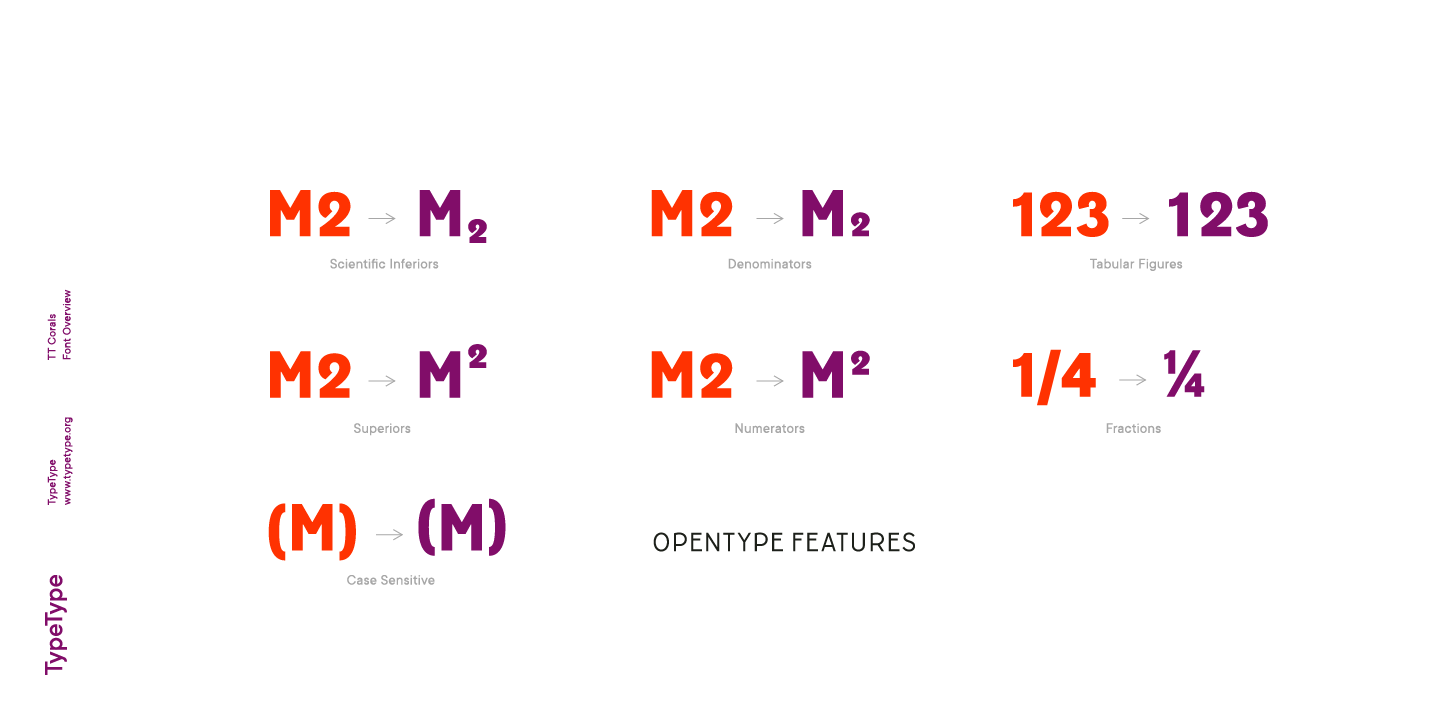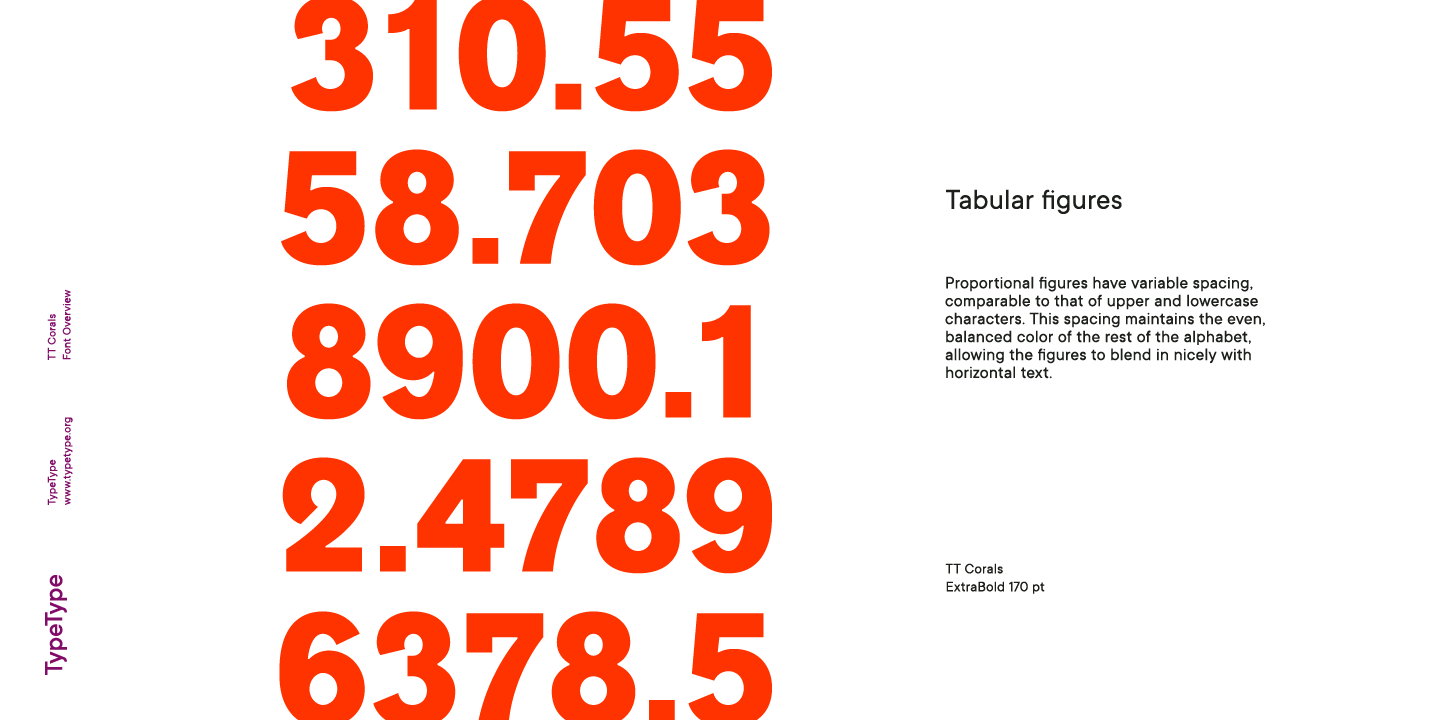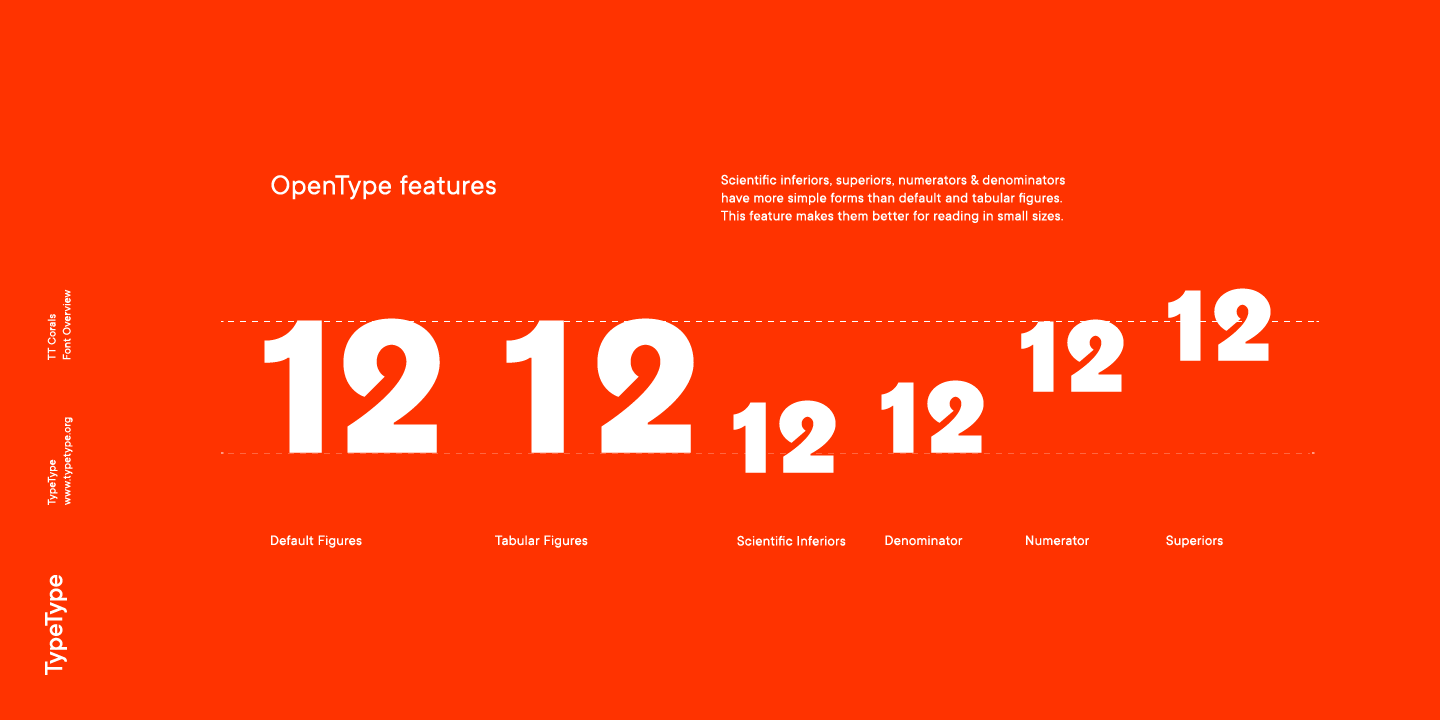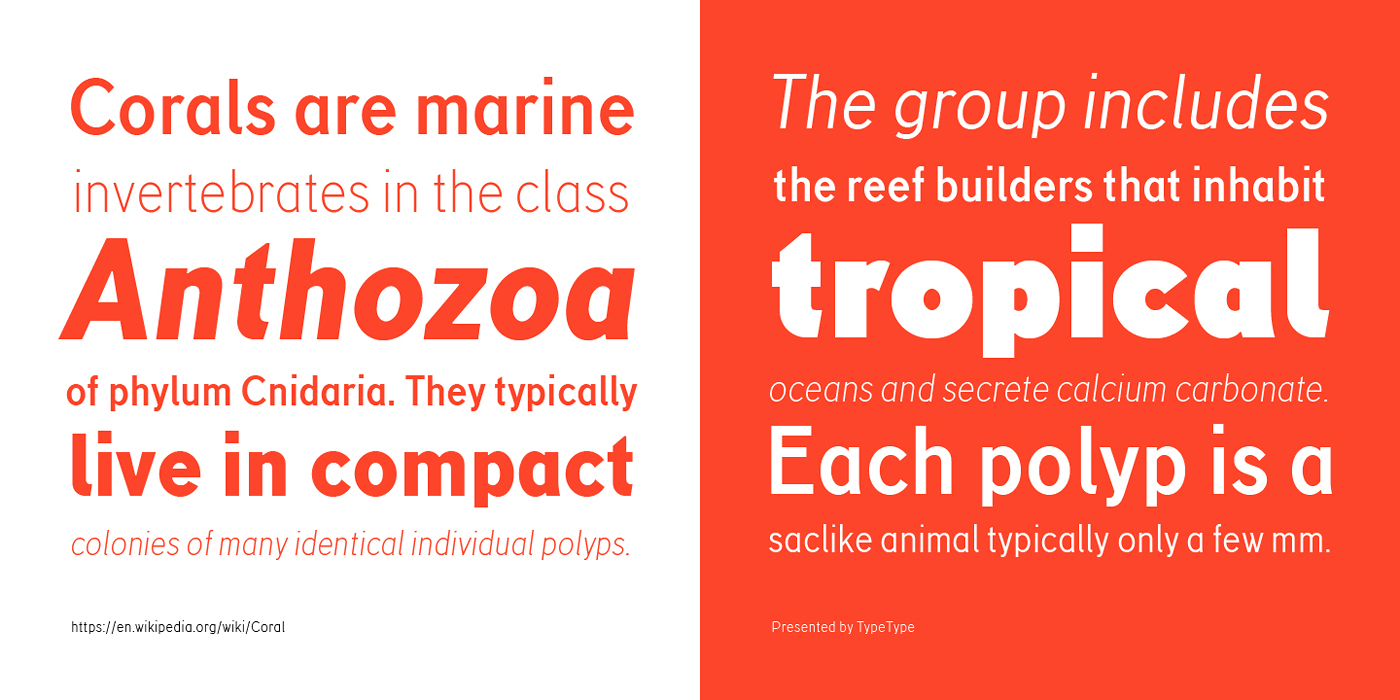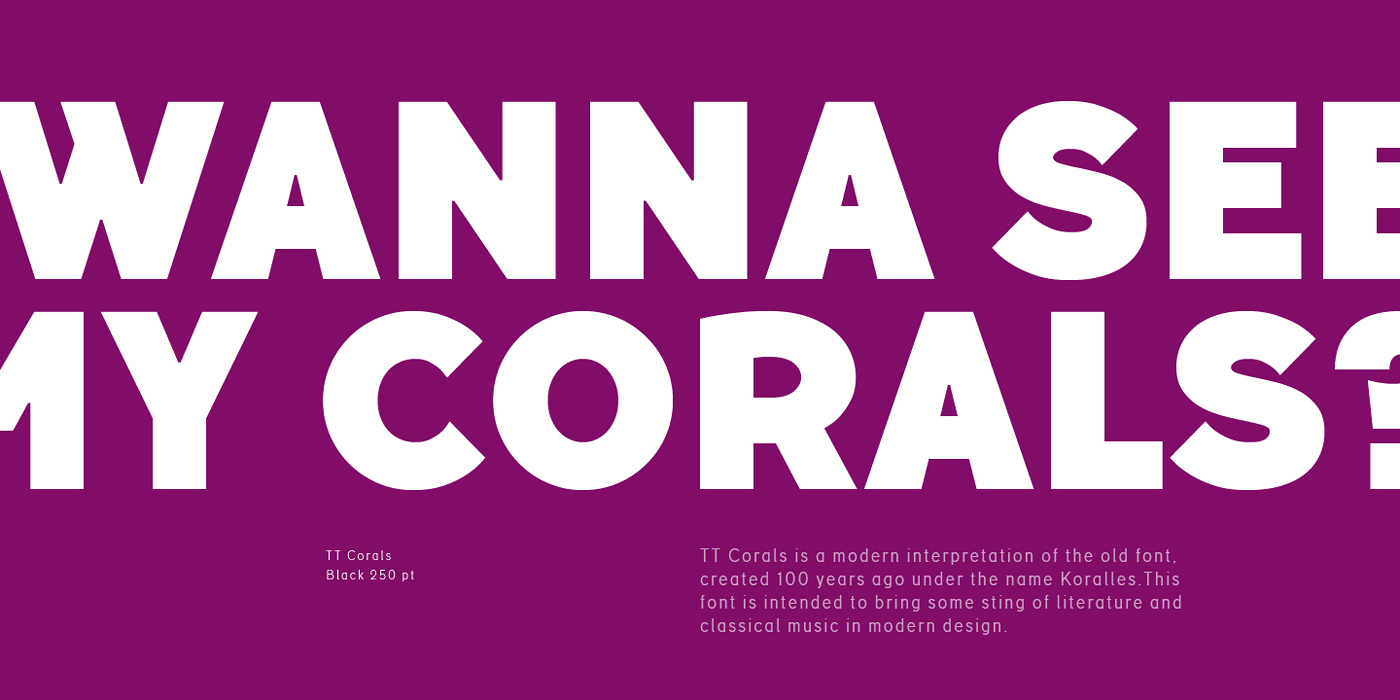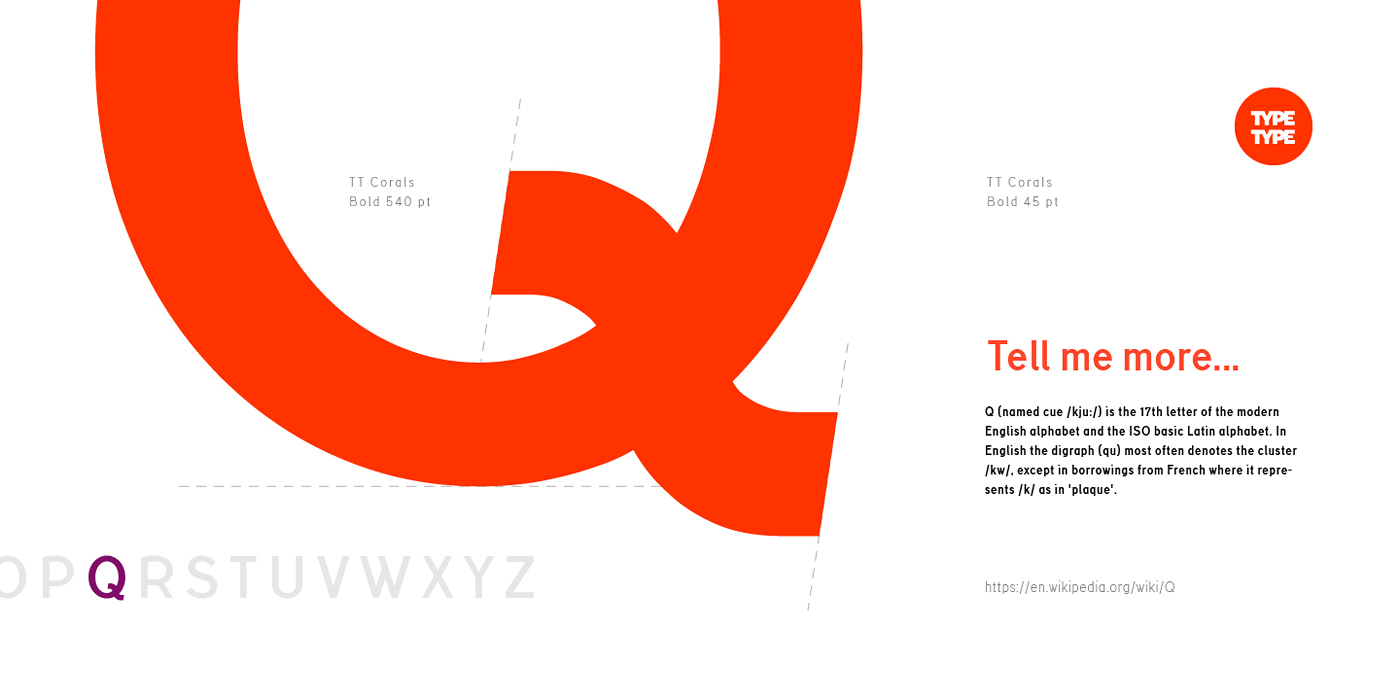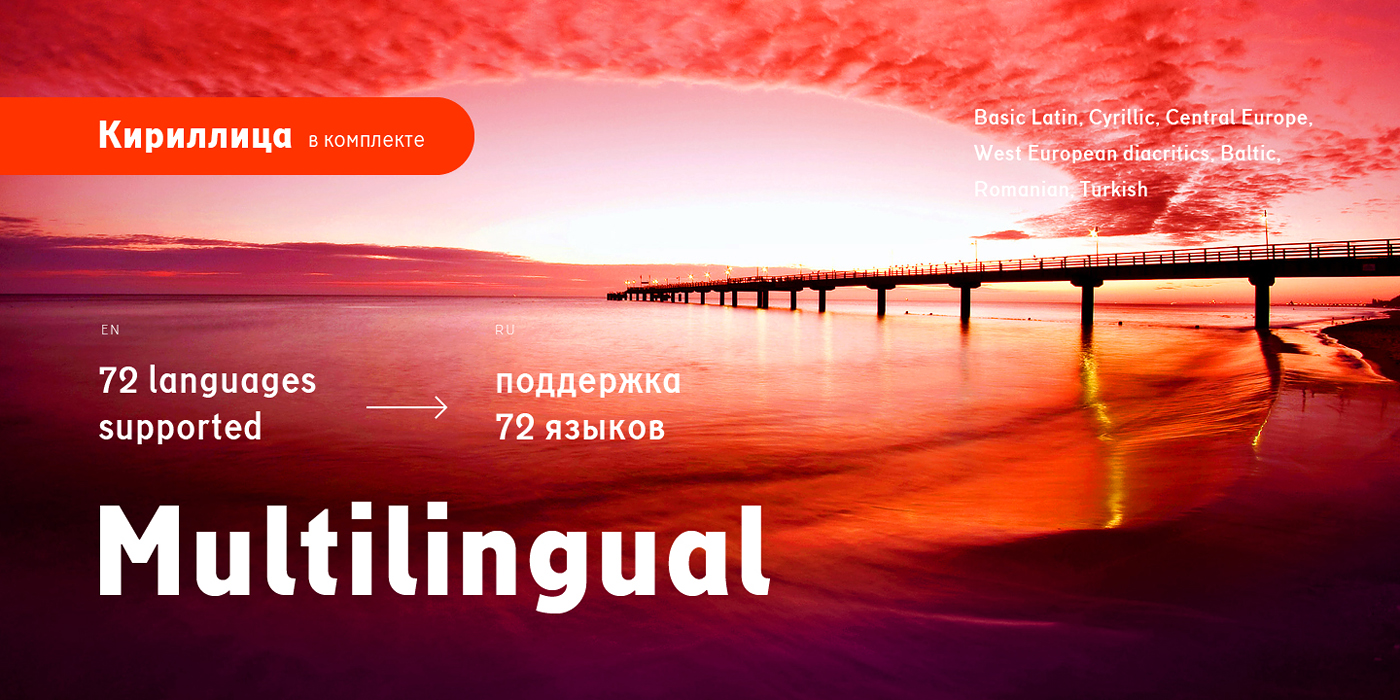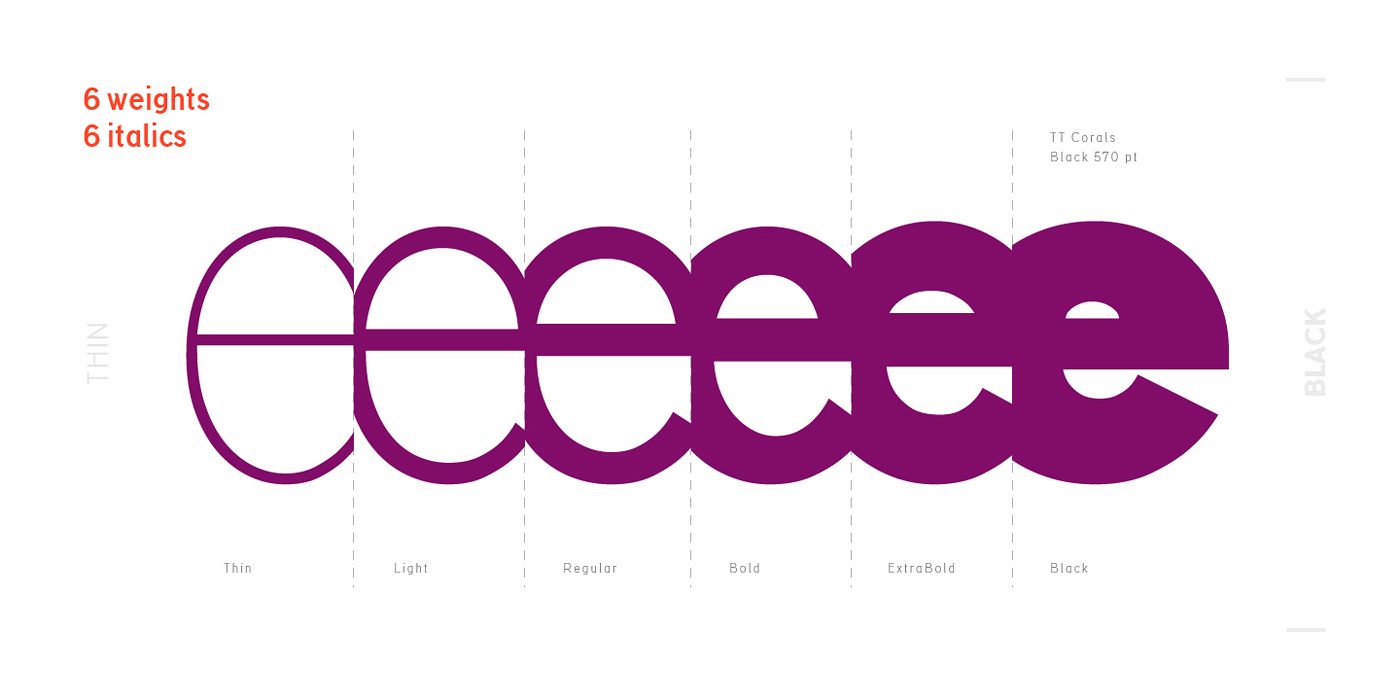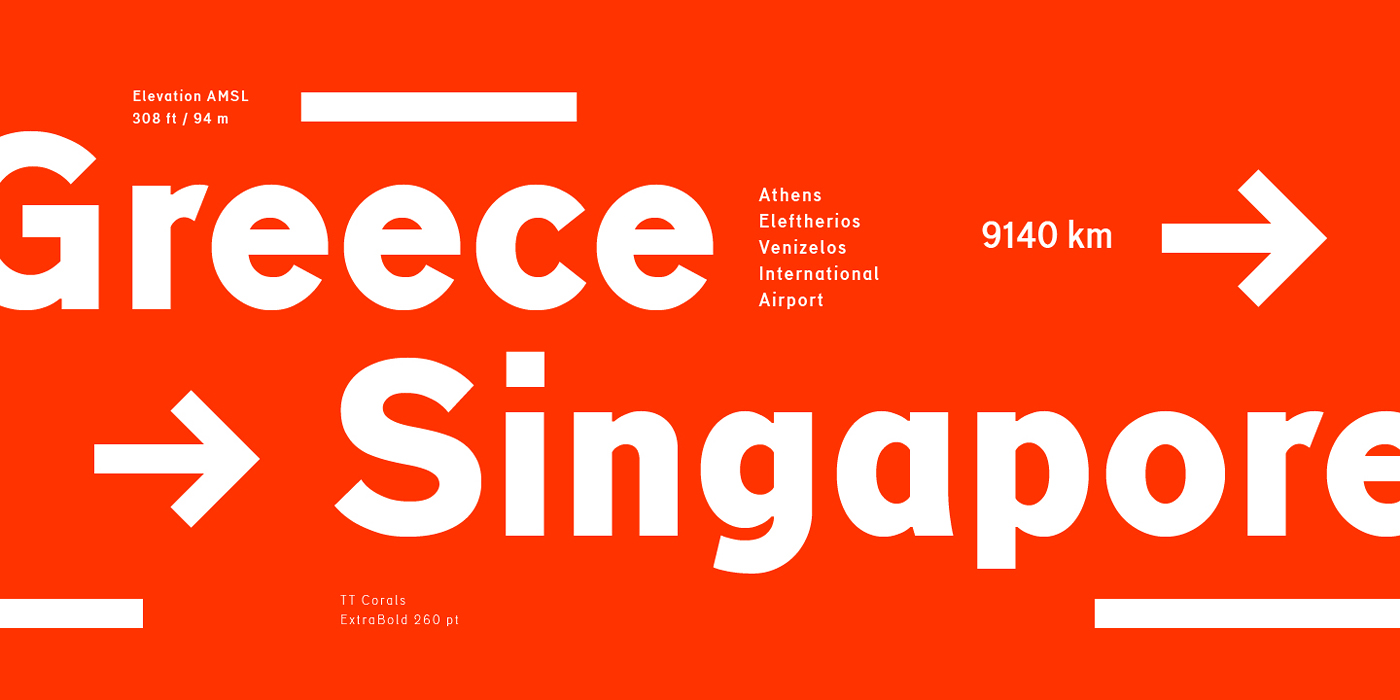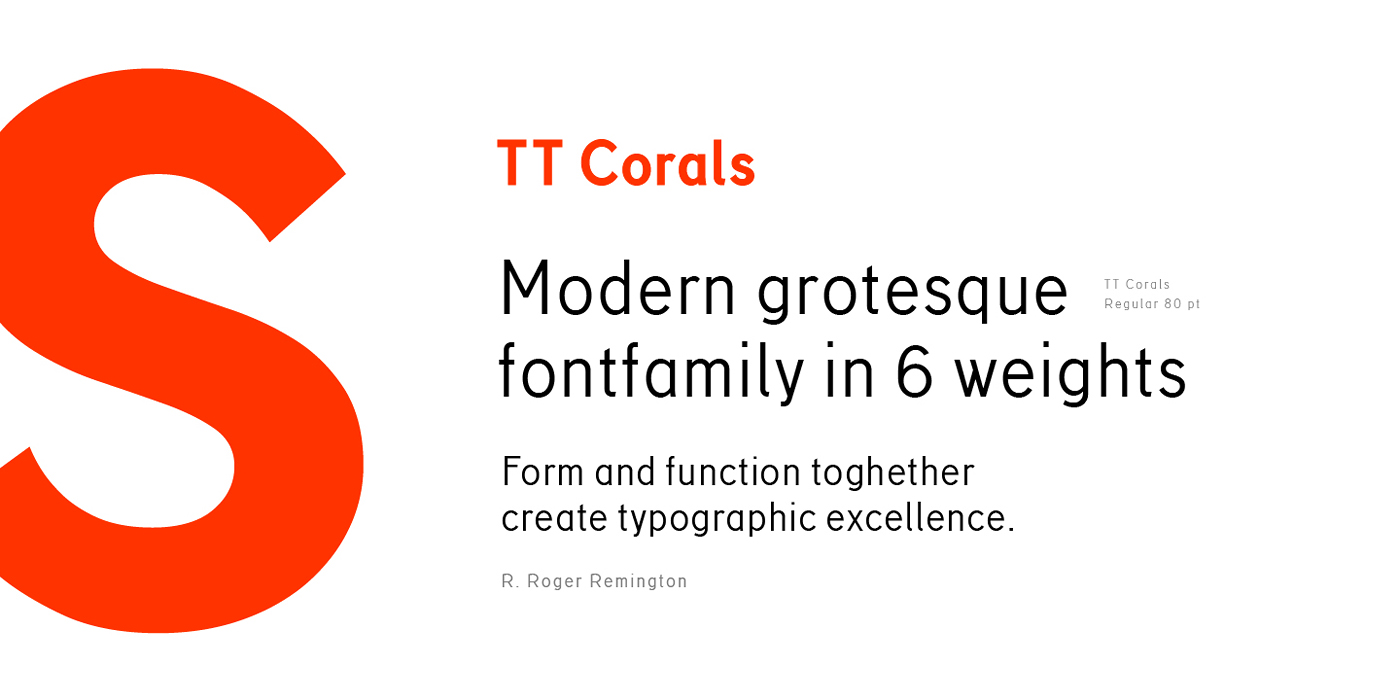
TT Corals
TT Corals is a modern humanist sans serif preserving early 20th-century typographic features.
A modern humanistic sans serif
For an increased functionality of the fontfamily, we have created six typefaces of various weights: Thin, Light, Regular, Bold, Extrabold and Black. The distinctive smoothness of the lines and separate el- ements allows using TT Corals for different design areas. TT Corals inspires with its freshness and novelty and gives new ideas for your creativity and art.
TT Corals has many typical traits of the beginning of the 20th century
It will perfectly fit for the topics of classical literature or music
About font family TT Corals
160+ Language support
TT Corals is a modern humanistic sans-serif which has many typical traits of the beginning of the 20th century. For an increased functionality of the fontfamily, we have created six typefaces of various weights: Thin, Light, Regular, Bold, Extrabold and Black.
The distinctive smoothness of the lines and separate elements allows using TT Corals for different design areas. For instance, it will perfectly fit for the topics of classical literature or music, and any other diverse creative areas of humans’ activities. TT Corals inspires with its freshness and novelty and gives new ideas for your creativity and art.
Basic Latin Basic Cyrillic Extended Latin Lining Figures, Currencies Punctuation, Symbols, Mathematical Symbols, Arrows
OpenType features
case | Case Sensitive Forms
frac | Fractions
numr | Numerators
dnom | Denomerators